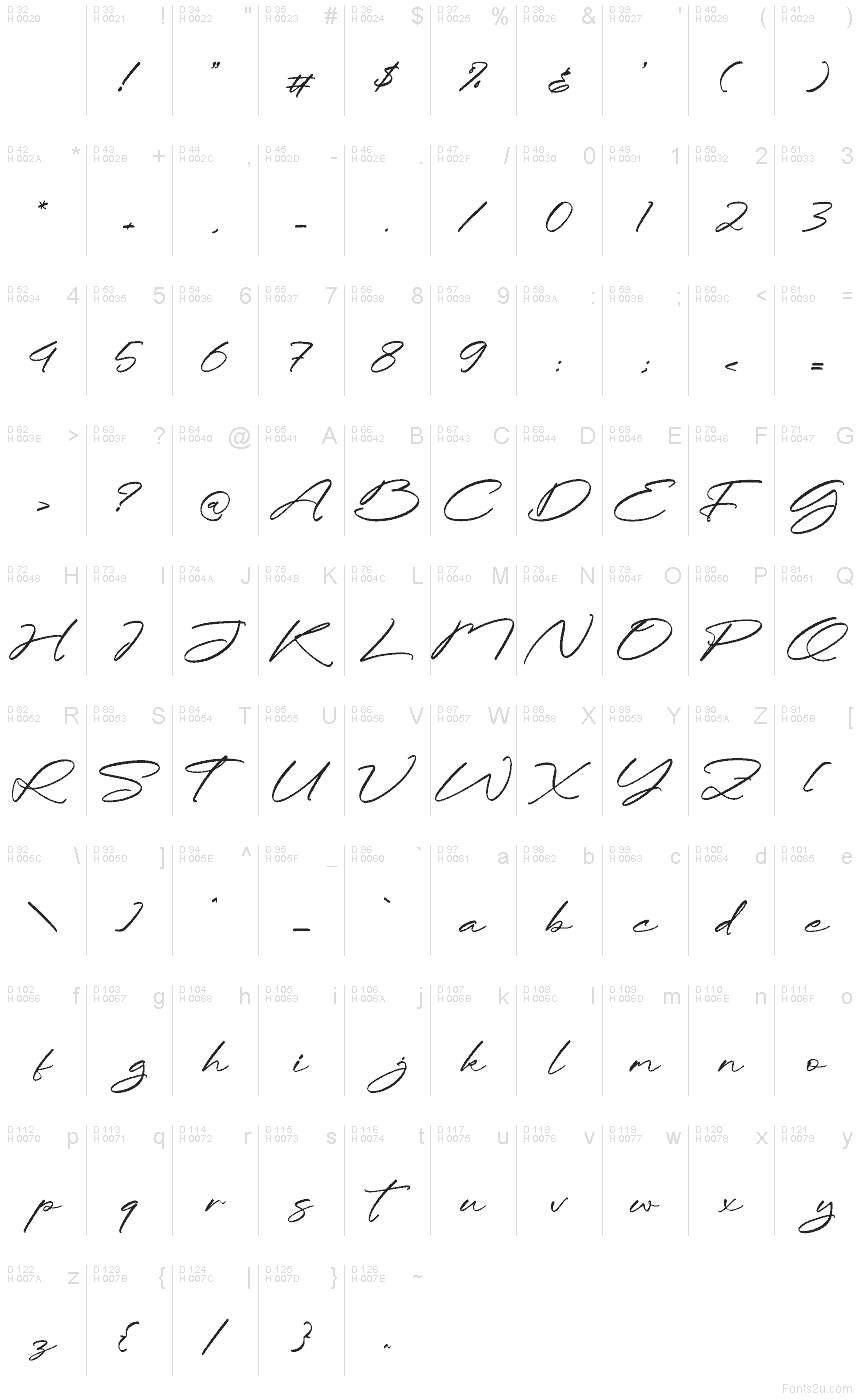
Thomasita
Thomasita font by Letterena Studios is a free, elegant handwritten typeface with a unique signature style adding an individual touch to every word. It stands out for its flowing lines and sophisticated forms that make it both modern and expressive. This high-quality script has a soft personalized feel allowing smooth integration within any artistic design project.
Let your ideas flourish and take your designs to the next level with this font that is appropriate for use in greeting cards, wedding invitations, stationery designs, signage, personal branding projects especially autograph signatures as well as in labels, book covers, social media posts, titles of magazines or books.